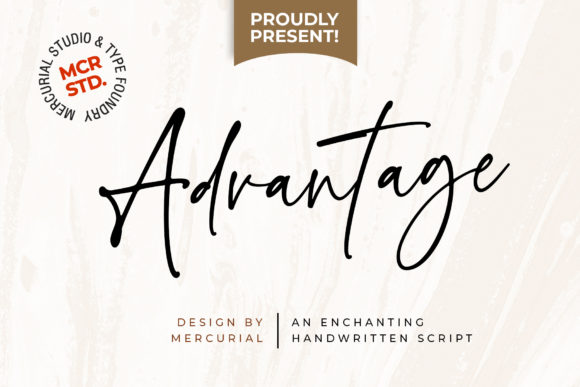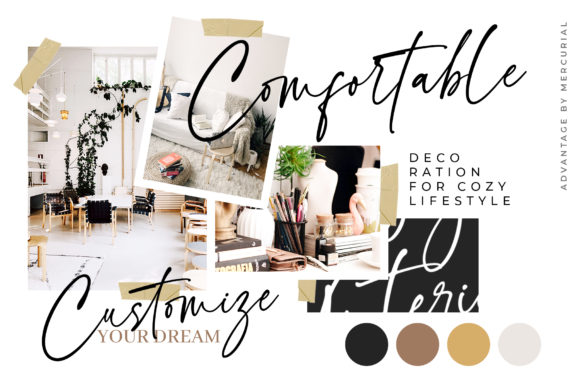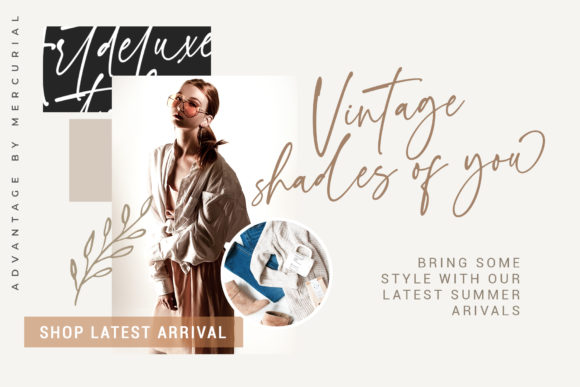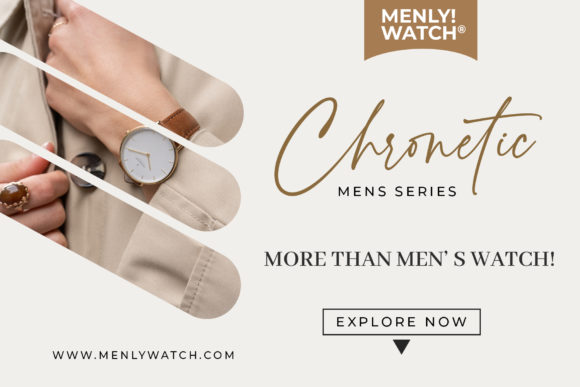
About Advantage Font
Advantage is an enchanting handwritten script. It features an incredibly classic style, while still keeping a friendly feel. Advantage is the perfect font for making original and outstanding designs.This font is PUA encoded which means you can access all of the cute glyphs and swashes with ease! It also features a wealth of special features including alternate glyphs and ligatures.